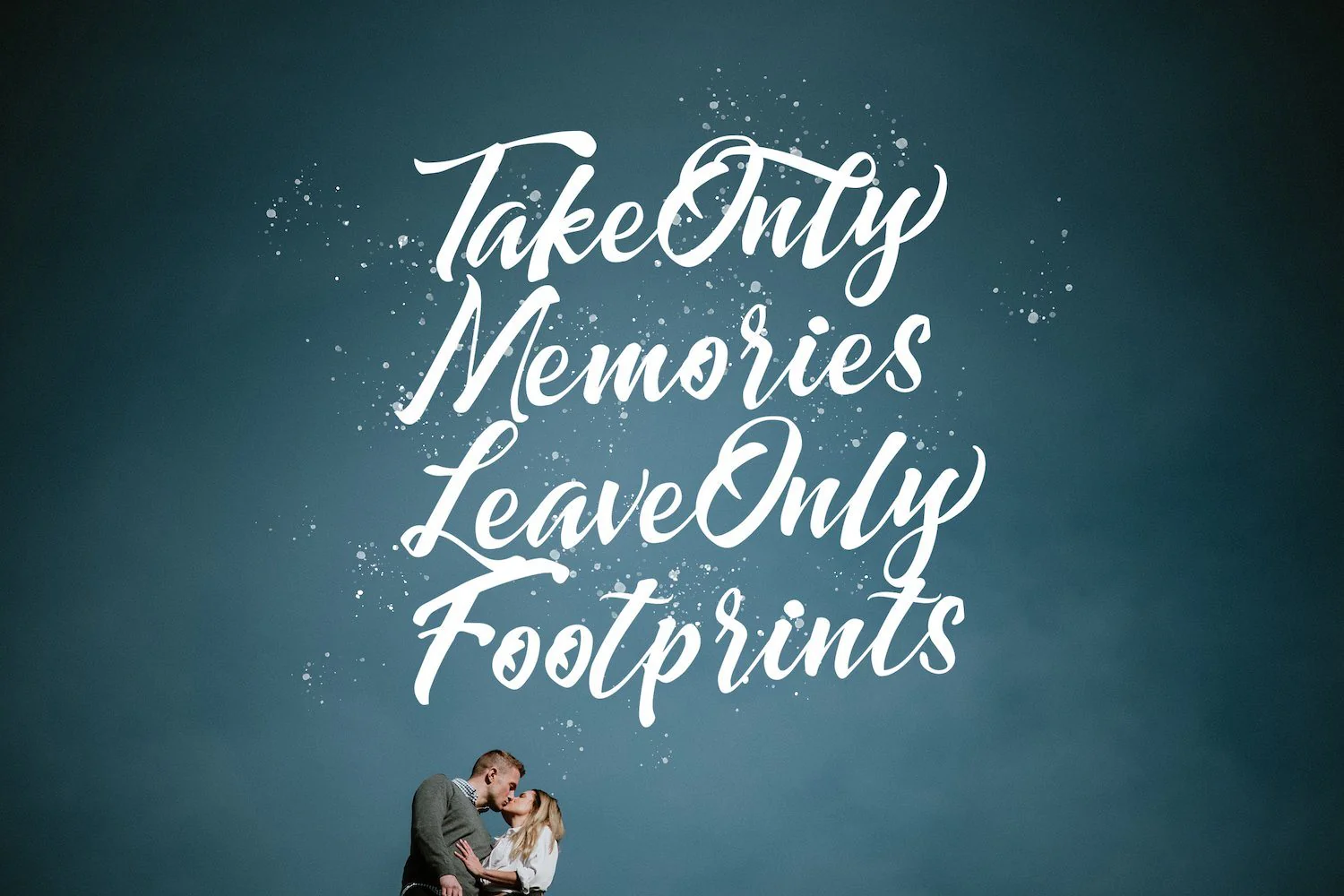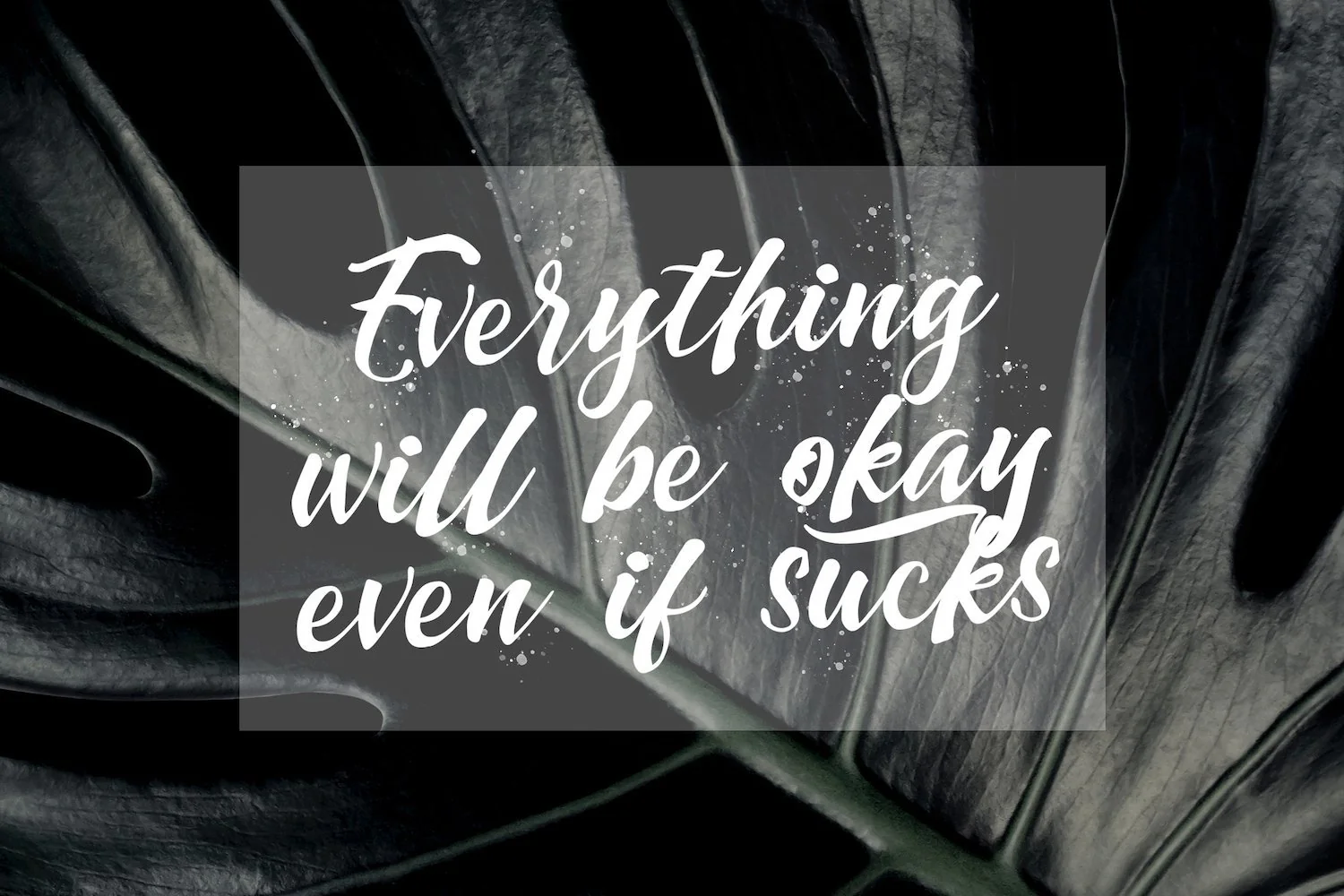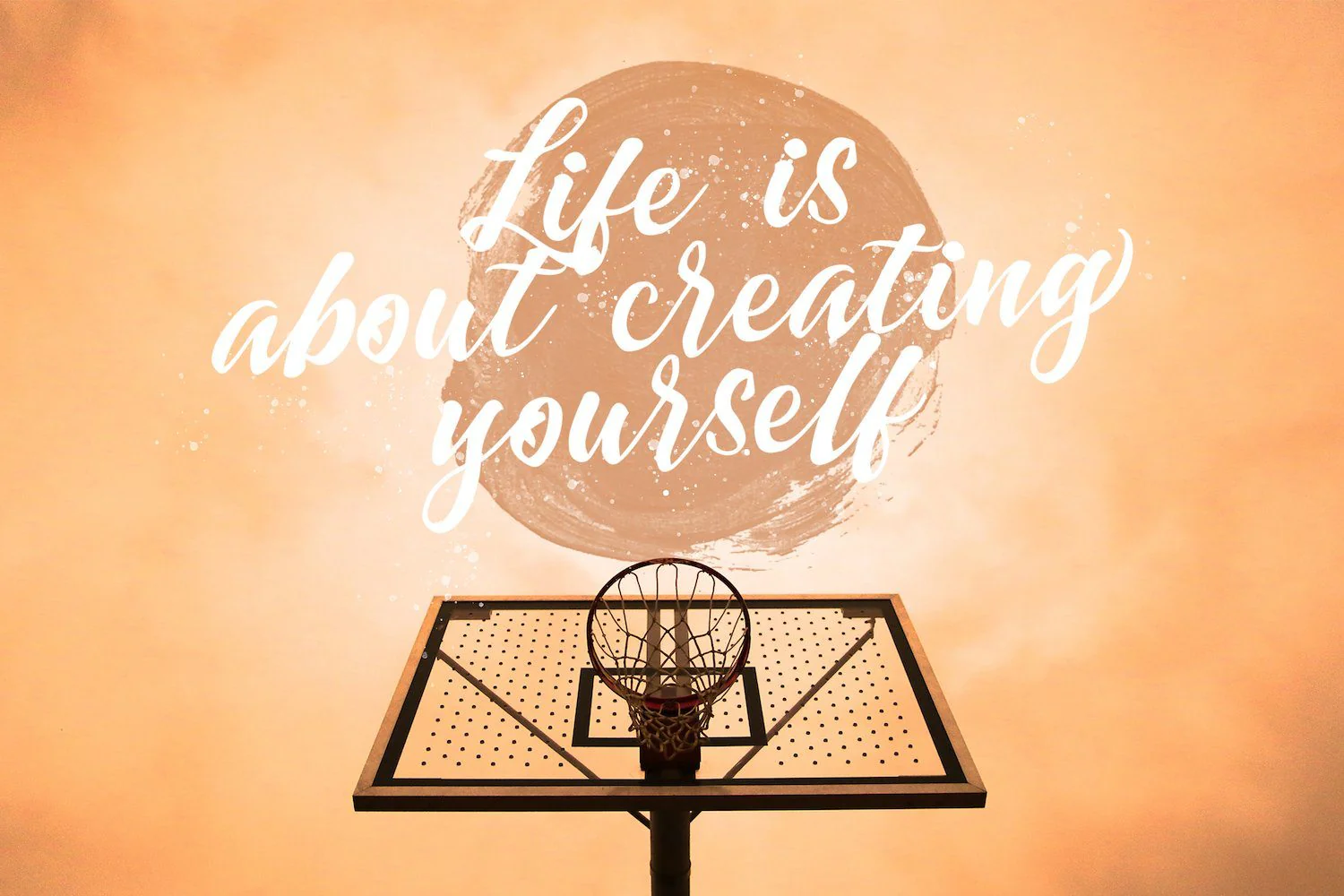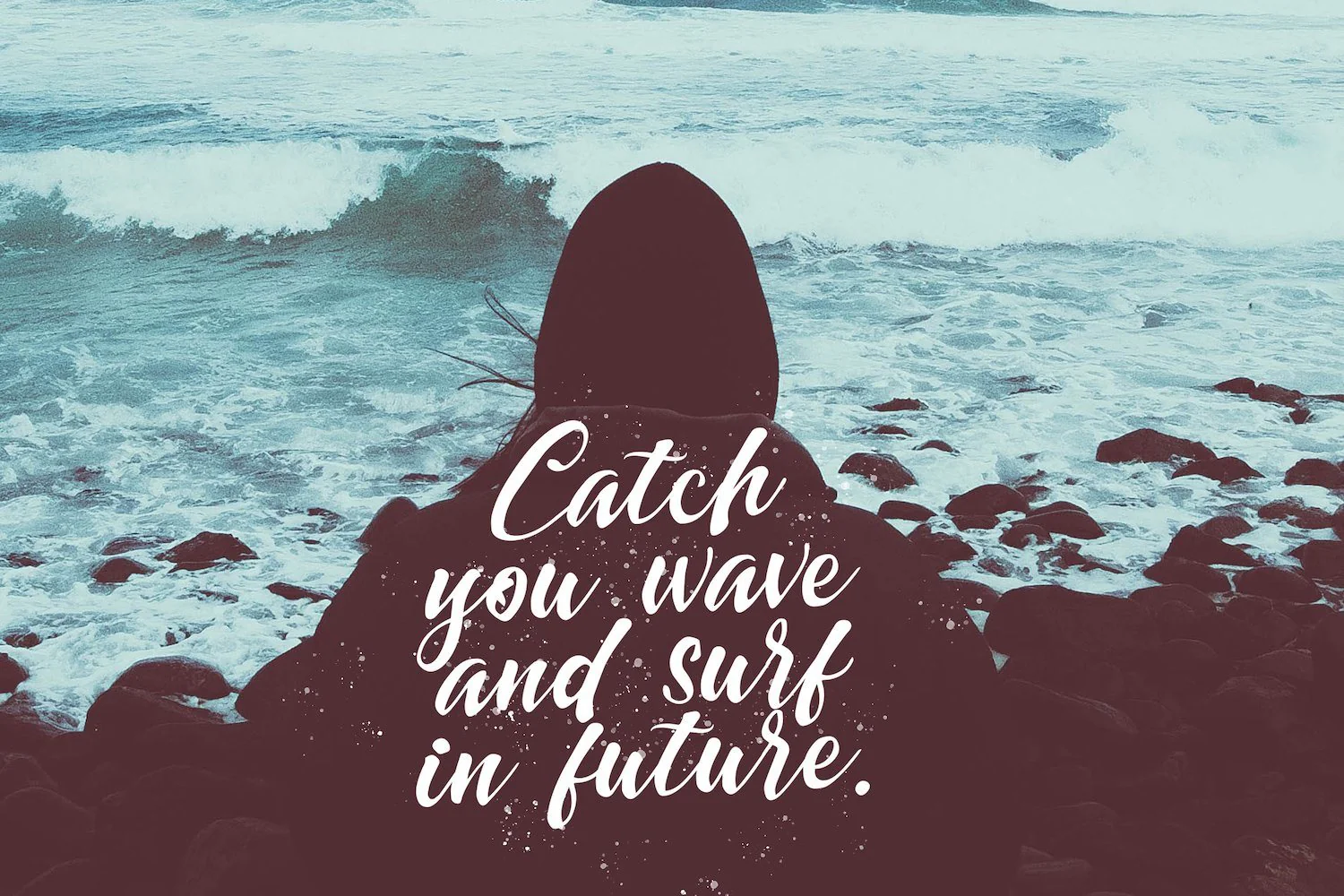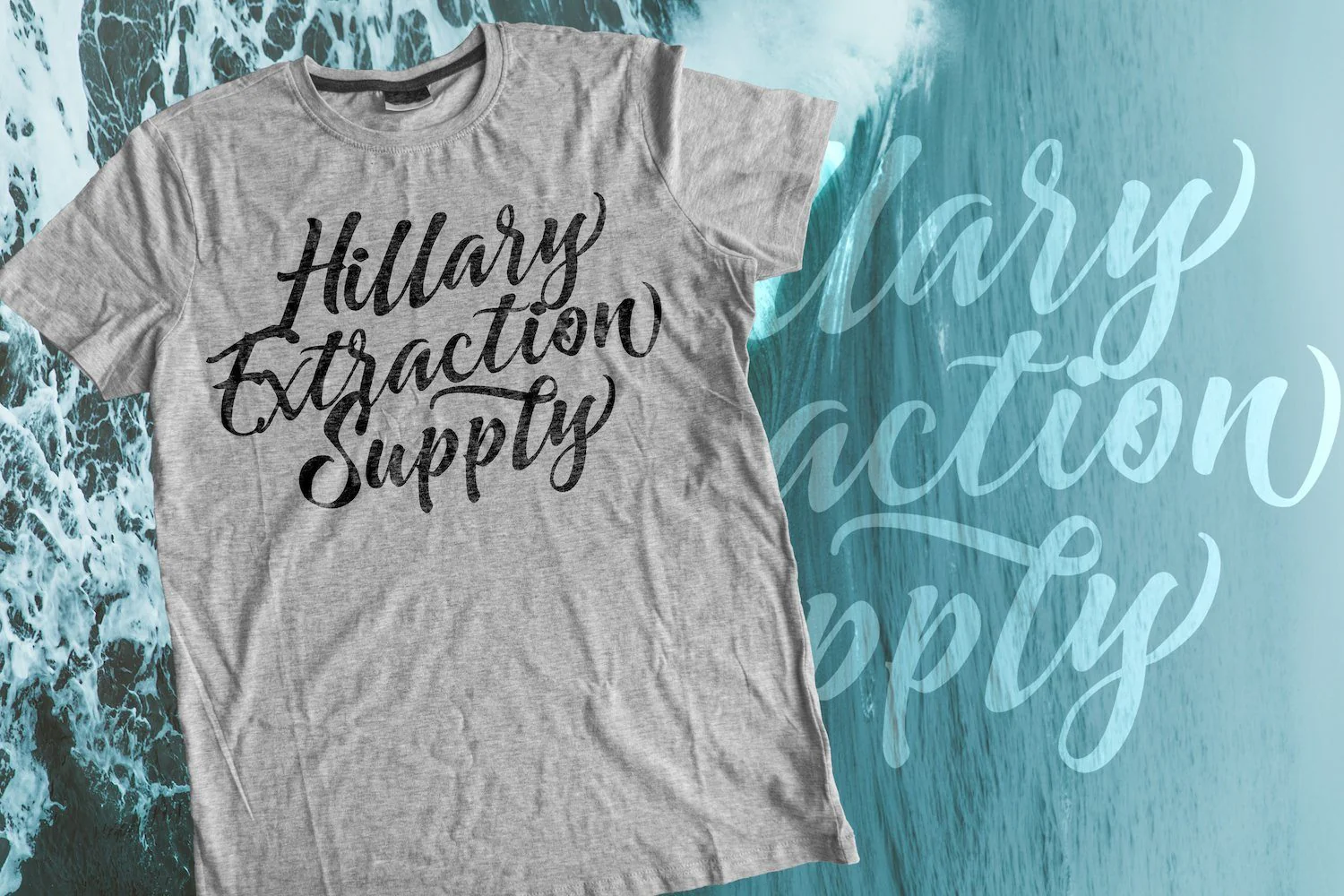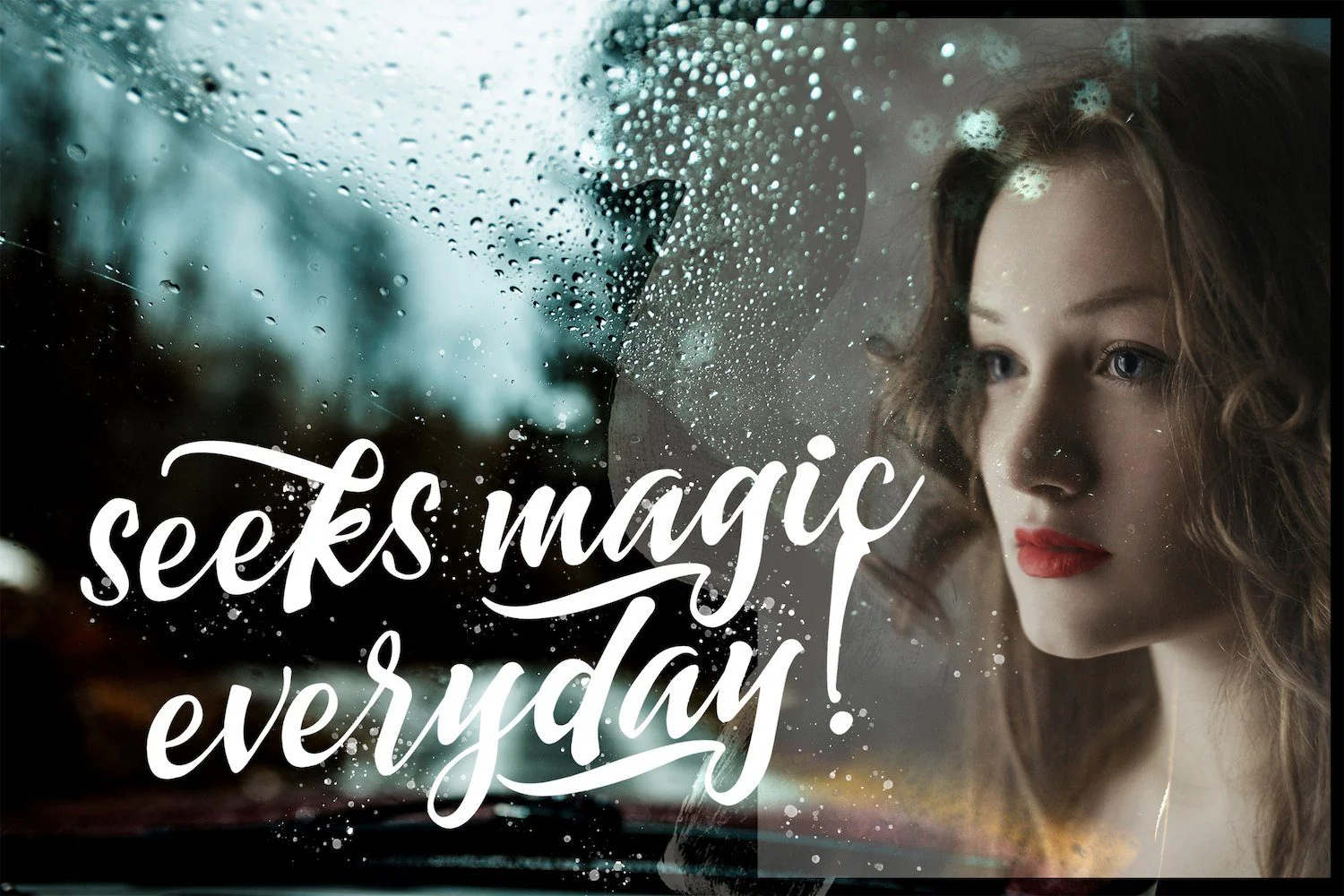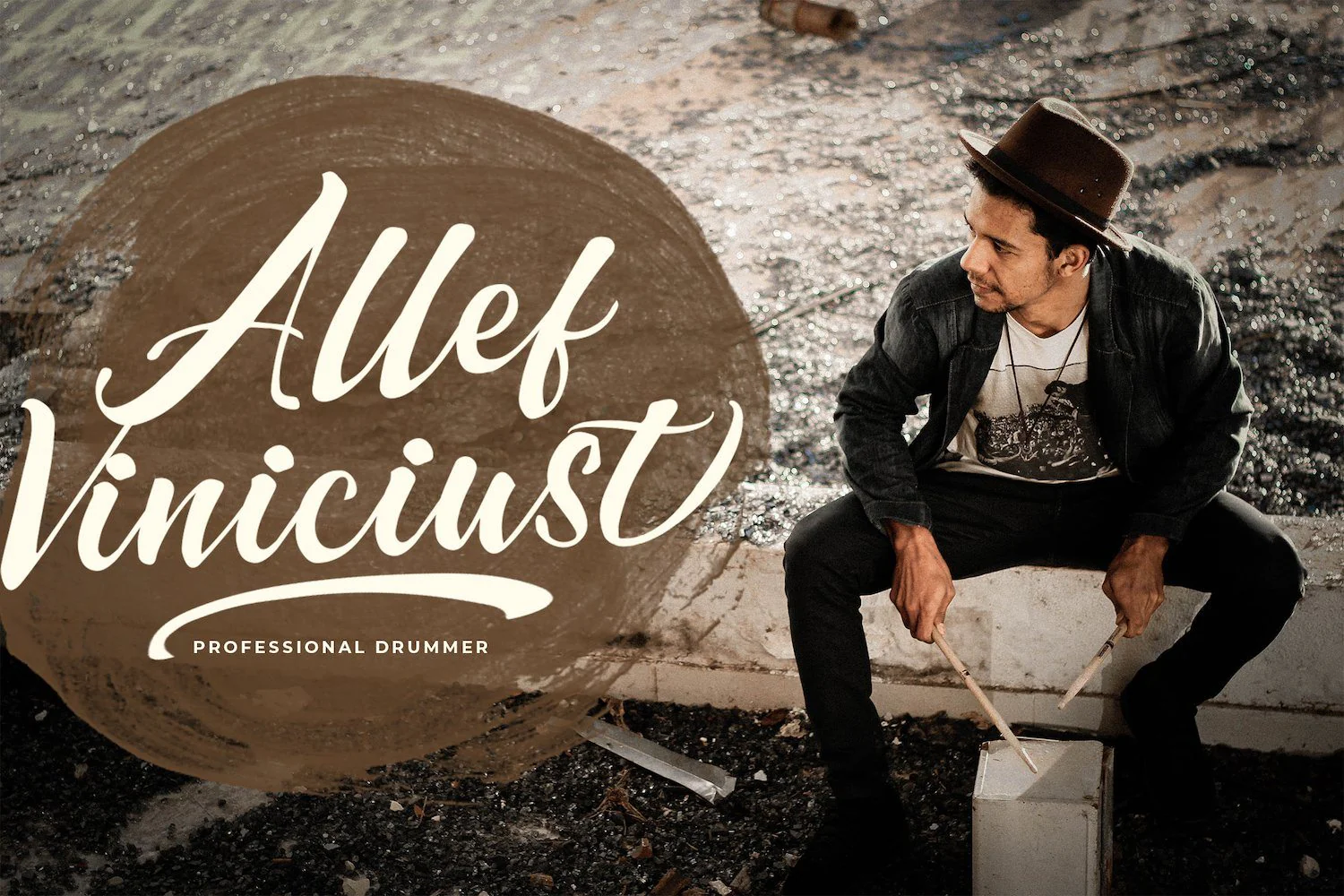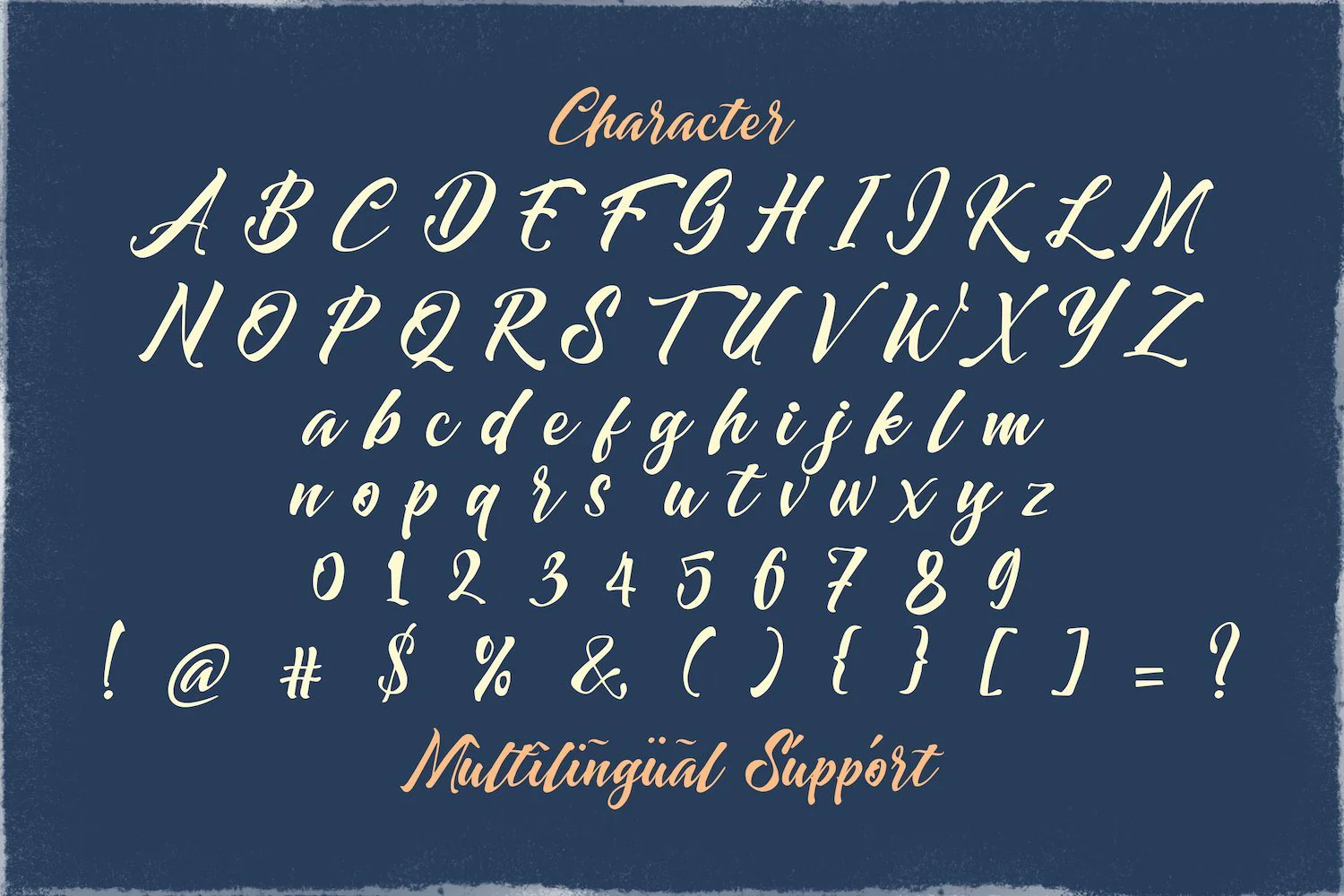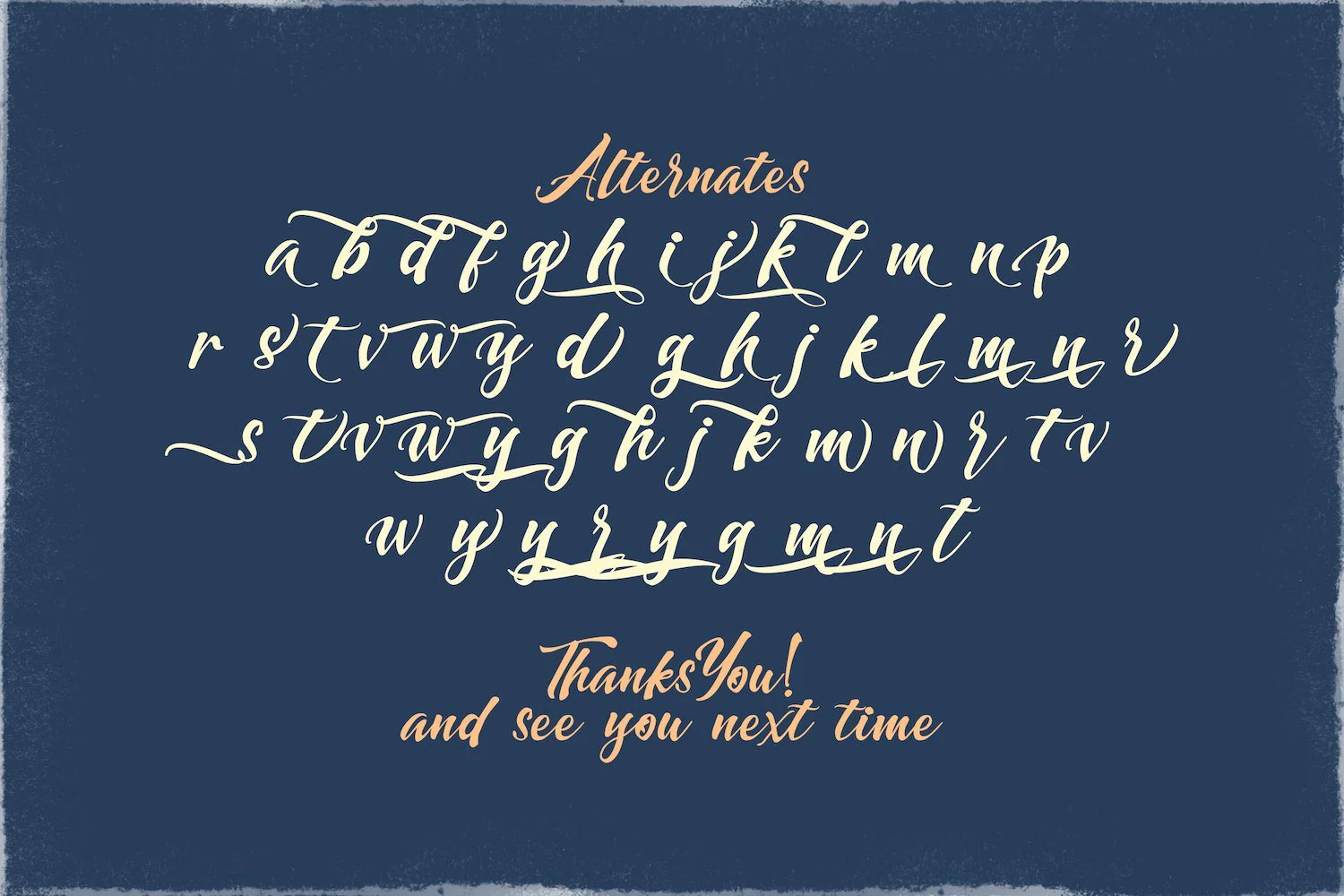
Dayden Batemisy - Brush Script Font
Introducing Dayden Batemisy - Brush Script Font
Dayden Batemisy is a flowing and elegant handwritten font, created with the help of a brush pen. Get inspired by its unique and beautiful style and add it to your favorite designs!
Introducing Dayden Batemisy - Brush Script Font
Dayden Batemisy is a flowing and elegant handwritten font, created with the help of a brush pen. Get inspired by its unique and beautiful style and add it to your favorite designs!